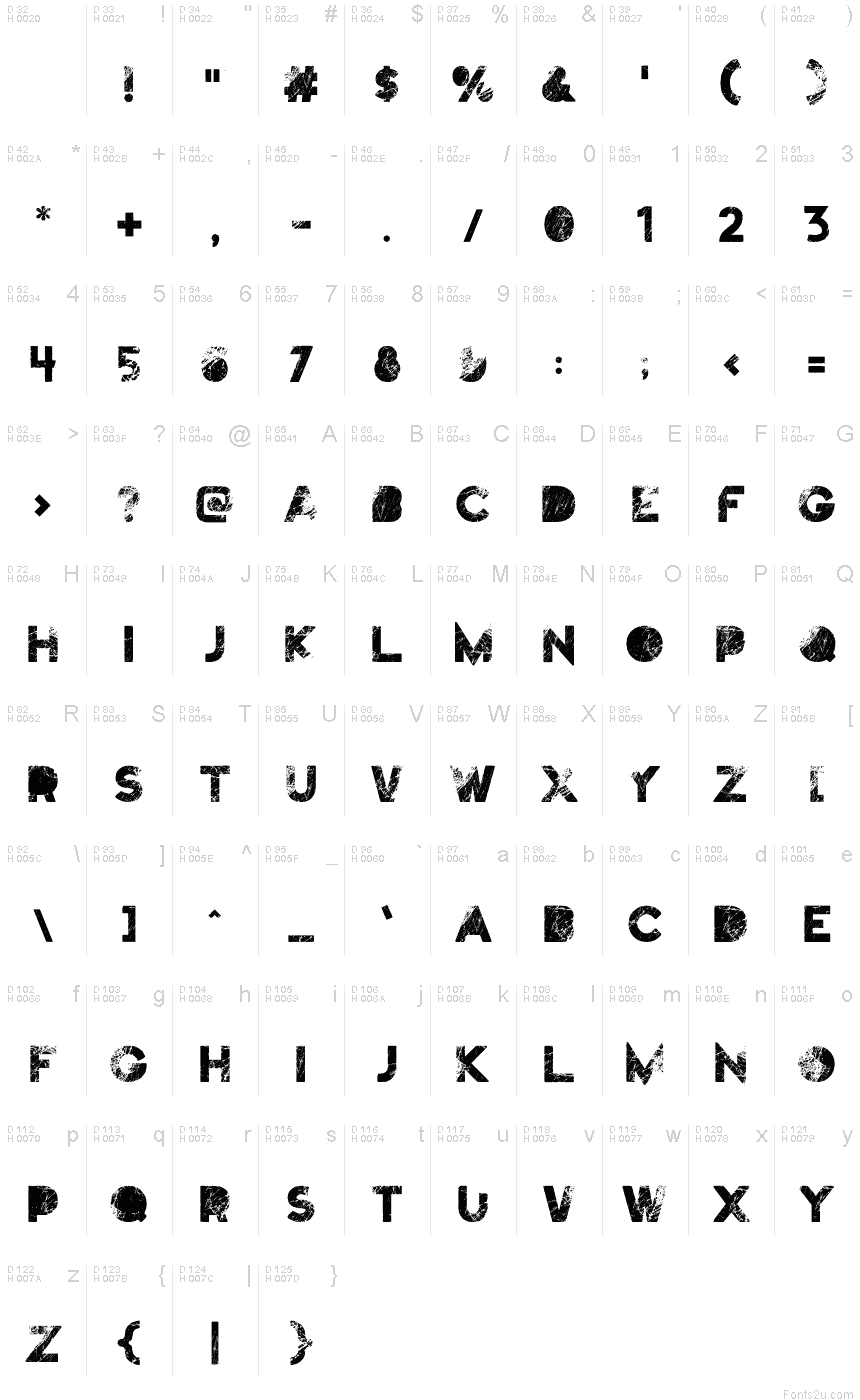
Truskey by Dirt2.com and SickCapital is a free eroded display font with broad, forceful capitals and the battered look of old paint on industrial signs. Deep scratches, chipped edges, and scattered patches of missing surface break across the dense letters in several directions, so the damage feels rough and physical rather than neatly patterned.
Posters are its most convincing home, especially for punk shows. Album covers, streetwear campaigns, and merchandise for aggressive music or youth brands can draw on the same abrasive finish, pairing the lettering with distressed photography, torn-paper collage, or concrete textures until the type becomes part of the image.